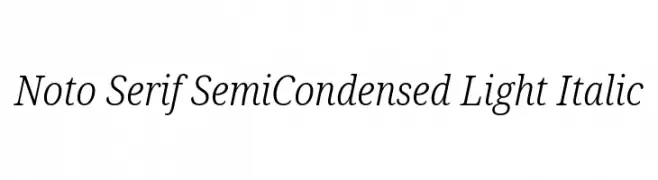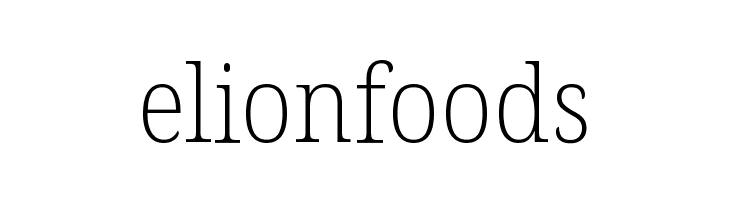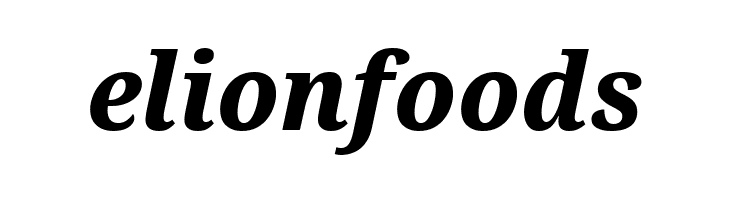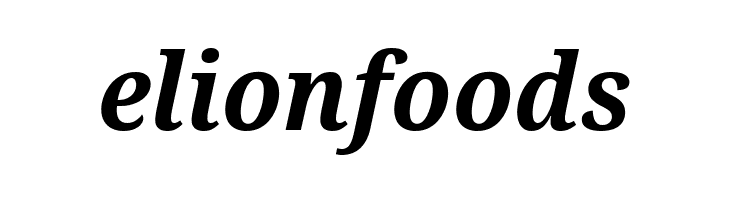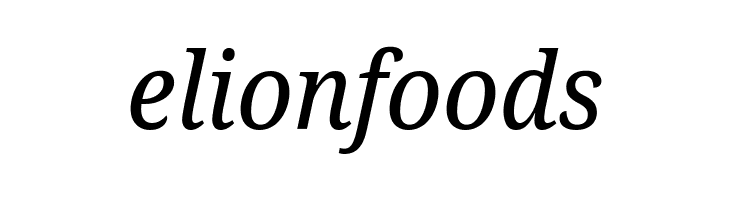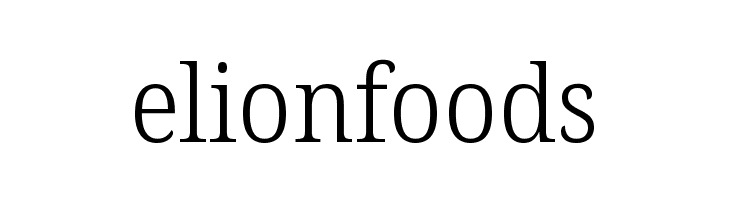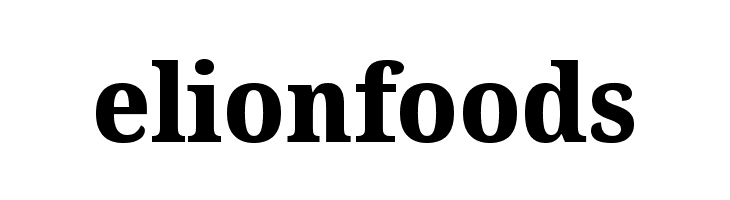
A semi-condensed, extra bold italic serif typeface with a classic yet modern appeal.
A classic serif font with a semi-condensed, extra light style, offering elegance and readability.
A refined, semi-condensed, extra light italic serif font with high contrast.
A refined serif font with semi-condensed, italicized characters, offering elegance and readability.
A classic serif typeface with semi-condensed proportions and a light weight, offering elegance and readability.
A refined serif font with a semi-condensed, light italic style.
A classic serif typeface with a semi-condensed, medium weight and moderate contrast.
A semi-condensed, medium-weight serif font with an elegant italic style.
A semi-condensed serif font with a semi-bold weight and medium contrast, offering a modern yet classic look.
A classic serif font with semi-condensed, semi-bold, and italic characteristics.